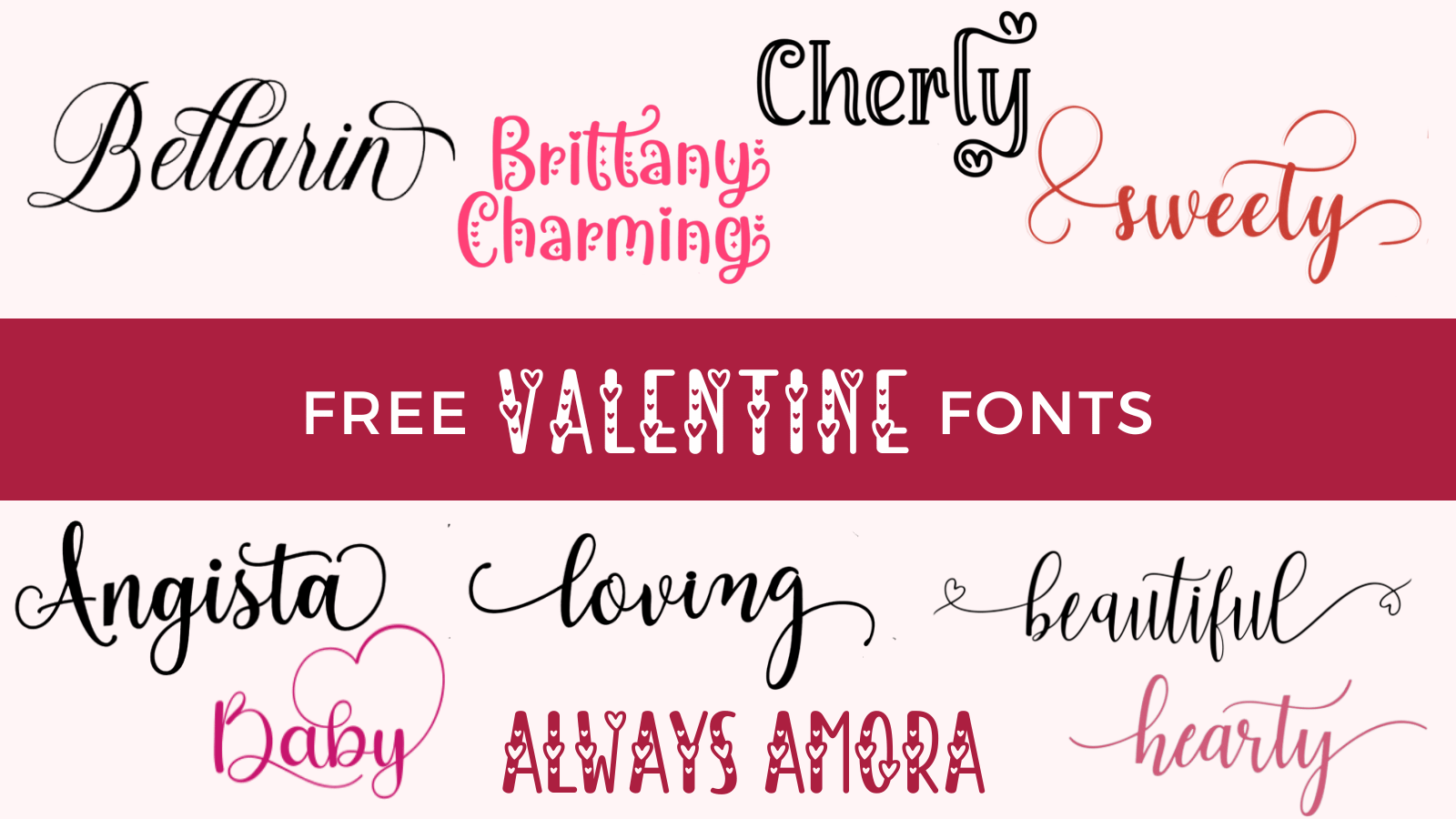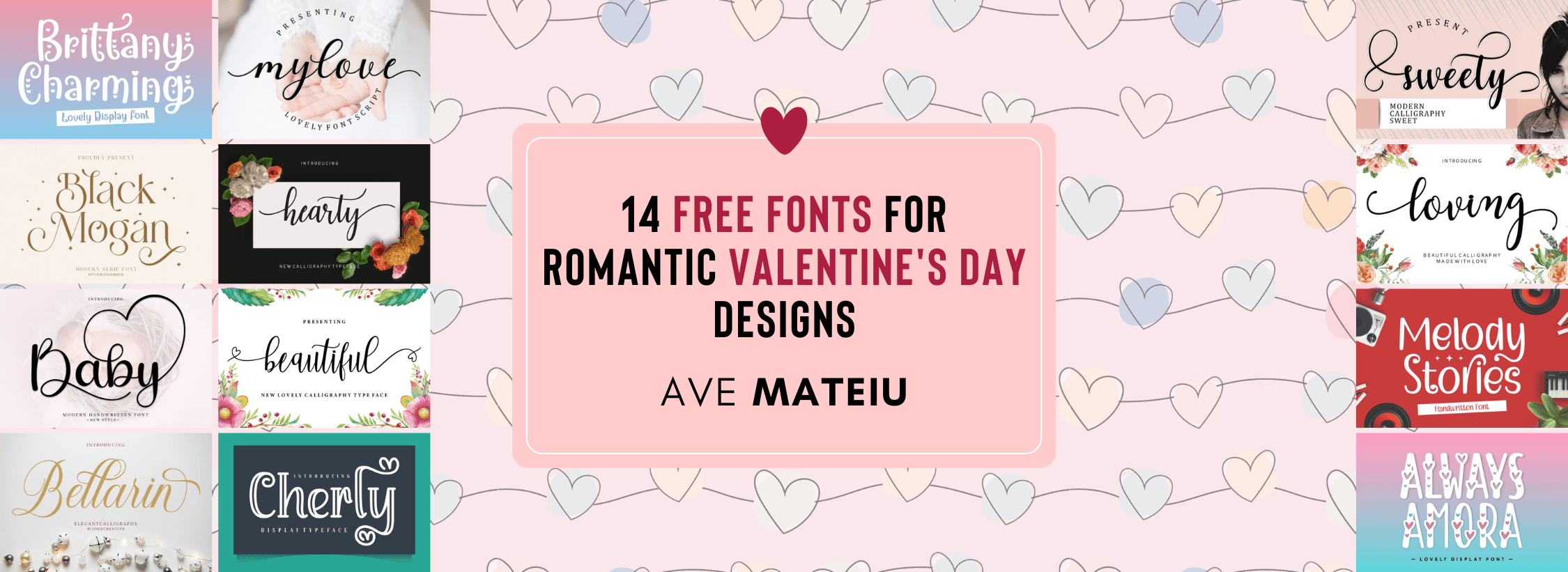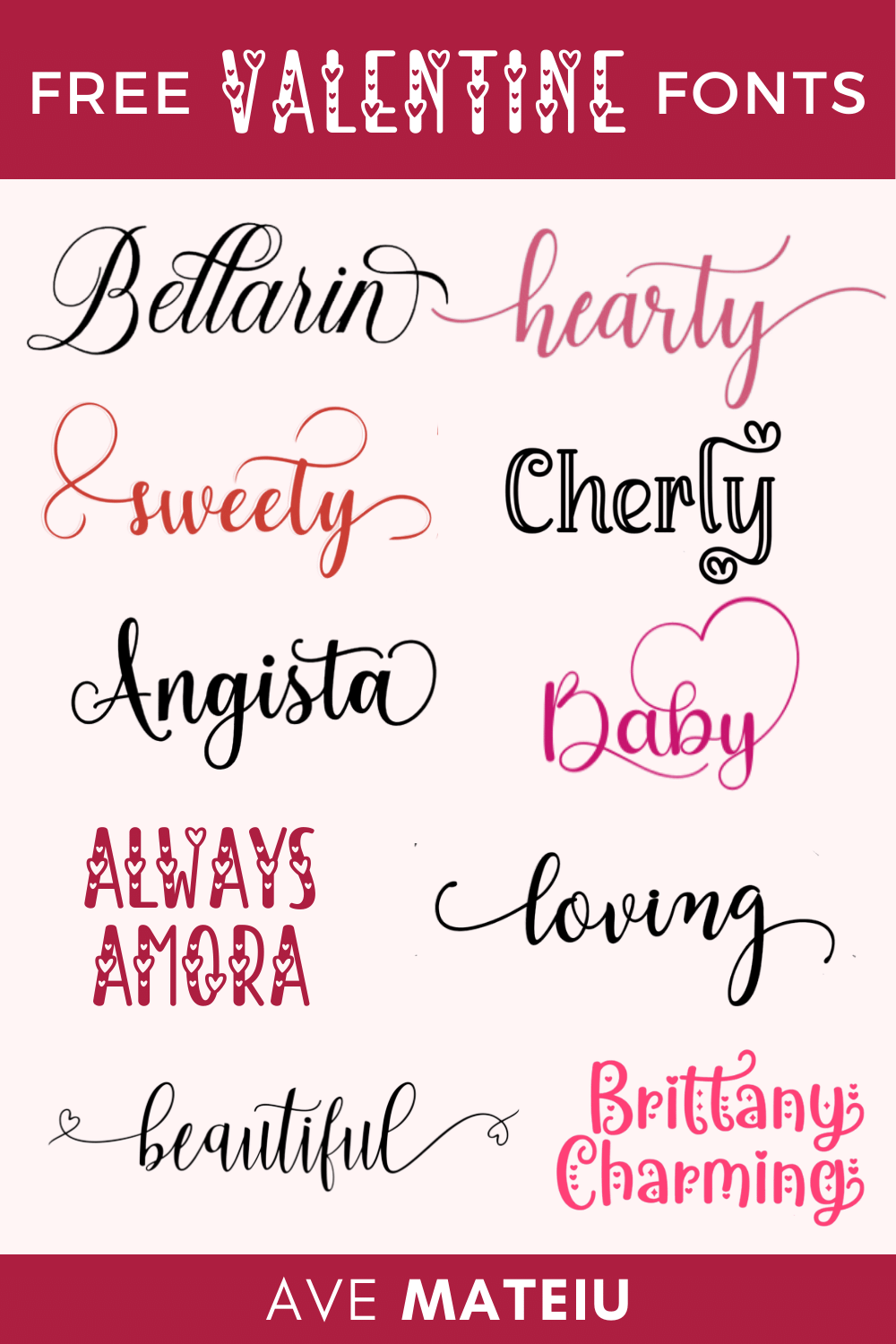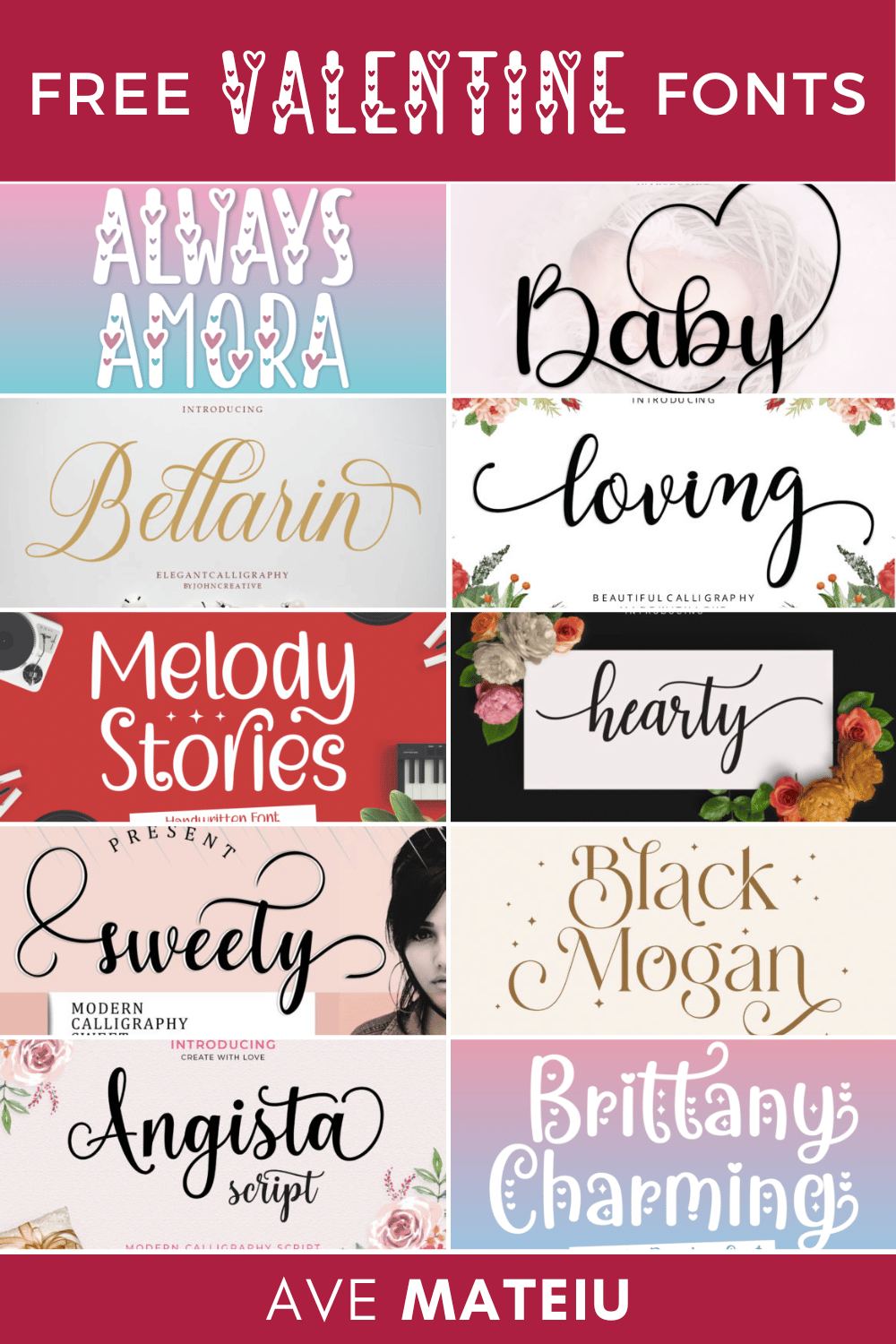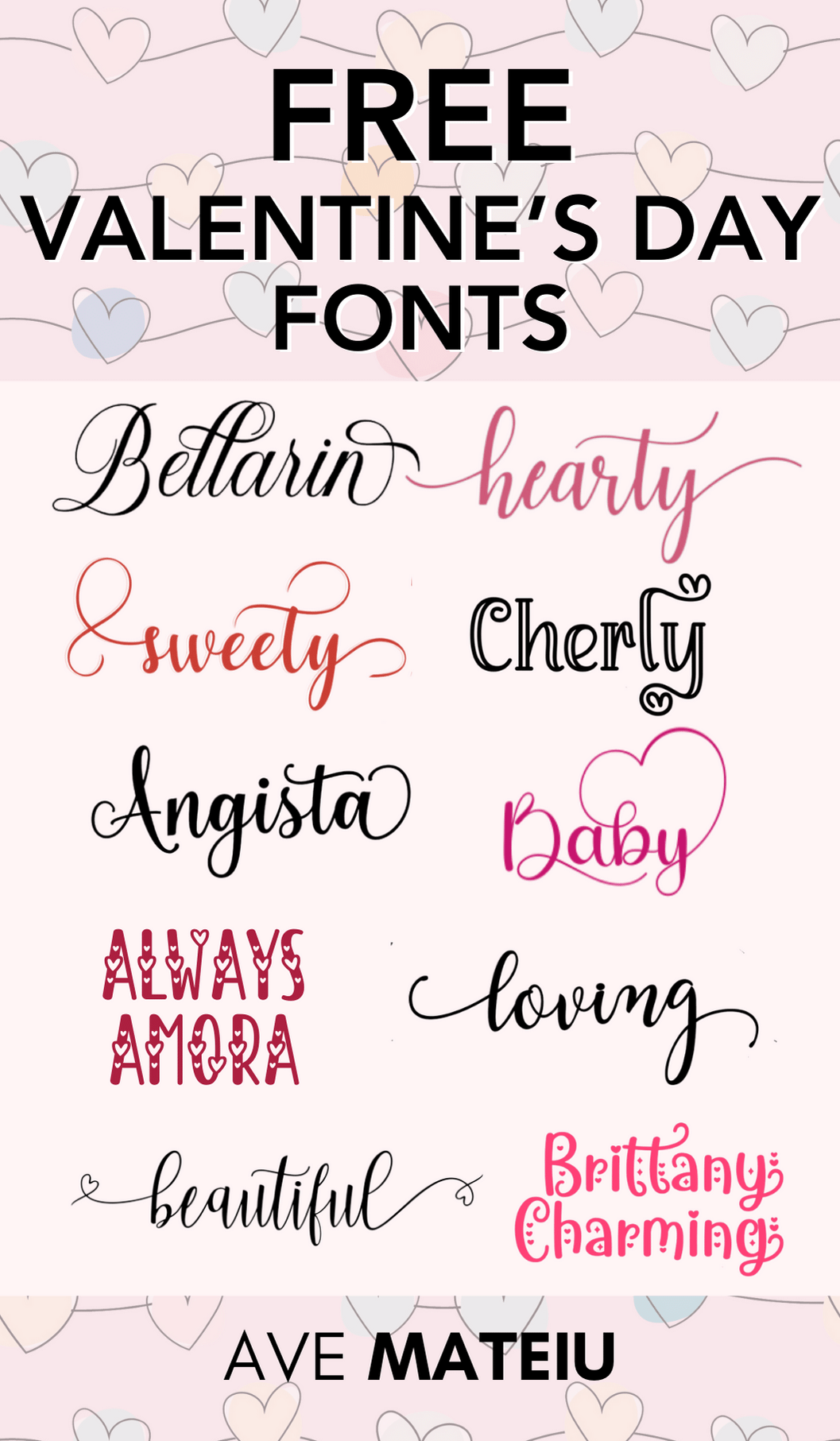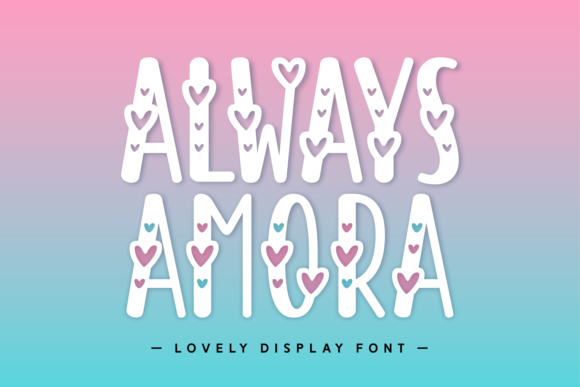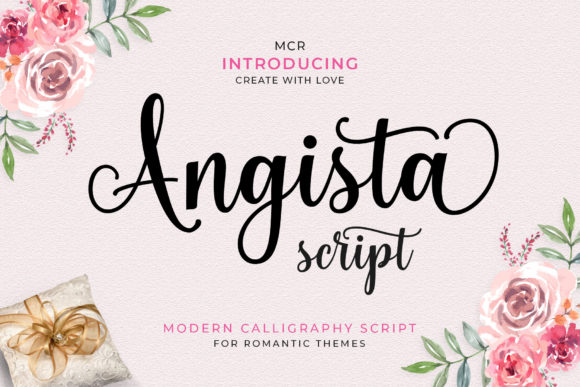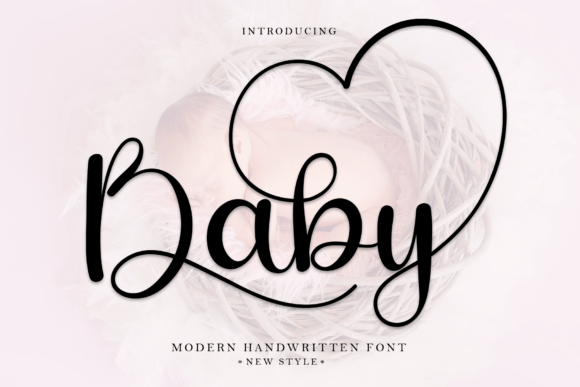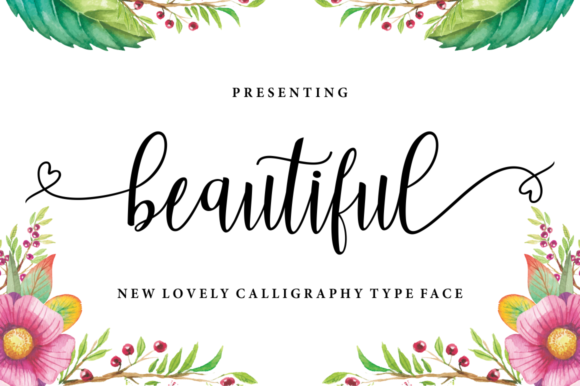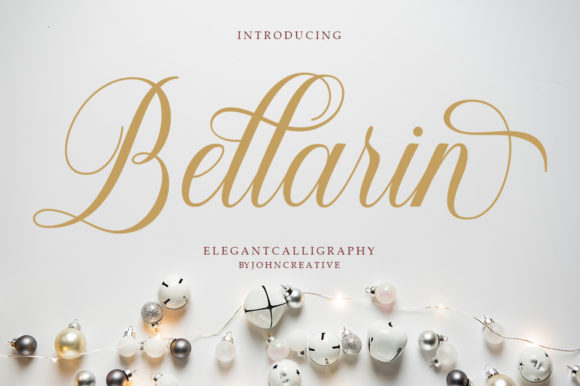
14 Free Fonts for Romantic Valentine’s Day Designs
Hey friends! You already know that fonts are like the secret sauce in design – they set the mood and show all the feels in a cool visual way. And since Valentine’s Day is just around the corner, it’s the perfect time to check out some free fonts that scream love and make your designs extra special. 💕
Ready for the magic? Let’s jump into this font adventure and find the ones that will make your Valentine’s Day creations totally wow-worthy.
Image featuring the text "Free Valentine's Day Fonts" with an example of free Valentine fonts all with commercial use.
Why fonts matter for Valentine’s Day designs
Let’s talk about fonts – they’re not just letters and characters; they’re like the mood setters for your designs. And when it comes to Valentine’s Day, picking the right fonts is super important to give your designs that lovey-dovey vibe.
Here are some tips to rock these free Valentine’s fonts:
1. Feel the feels: Choose fonts that show the feelings you want people to feel. Whether you’re going for a fun and playful look or something fancy and elegant, the right font can make your design hit all the right notes.
2. Mix it up: Try combining different fonts to make things interesting. Like team up a fancy script font with a simple sans-serif font for a modern and romantic vibe, or put a bold display font next to a delicate serif font for a cool contrast.
3. Big and small: Play with font sizes to make things stand out. Big fonts for the important stuff, and smaller ones for the not-so-big things. It’s like guiding people’s eyes where you want them to look!
4. Stick together: Keep your fonts like a squad – choose a few that work well together and use them all over your project. It makes everything look neat and put together.
So, with these tips and these awesome free fonts, we’re gonna show you, your Valentine’s Day designs will shout out love and romance like never before! ✨
The 14 free Valentine’s Day fonts are:
Angista Script Font
Brittany Charming Font
Melody Stories Font
Valentine’s Day Font
Conclusion